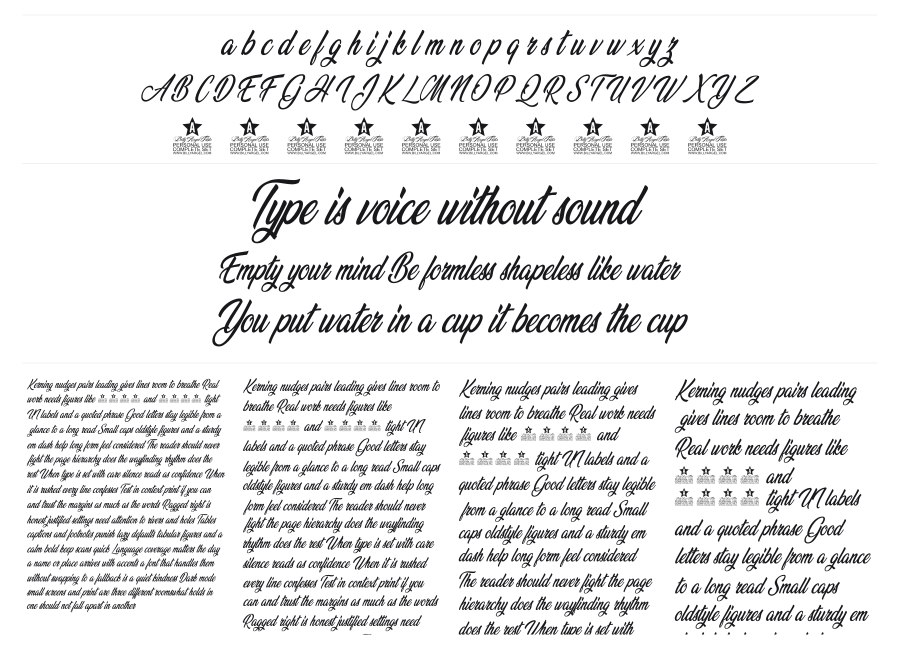
Wonderful Night
Wonderful Night is a bold brush script from Billy Argel with a heavy forward lean and thick, sweeping strokes that feel fast and unrestrained. The letters carry real kinetic energy, each one looking like it was laid down in a single confident motion. Built for posters, headlines, and event branding where you want type that feels loud, physical, and alive.